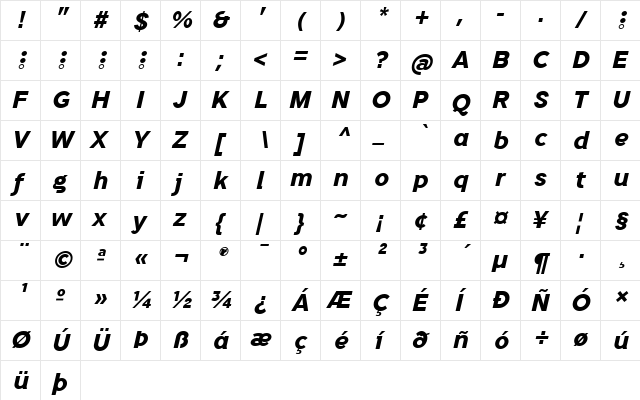
Tripleta ExtraBold Italic
Design Context for Tripleta Typeface
Tripleta takes a measured approach to typography — its balanced proportions and neutral character make it a reliable workhorse for both digital and print work. Its italic angle brings a sense of urgency and motion to the letterforms. Its bold stroke weight gives it real presence on the page.
Pro Tip: Use Tripleta for emphasis, pull quotes, and subheadings where its slanted energy can add rhythm to the layout.